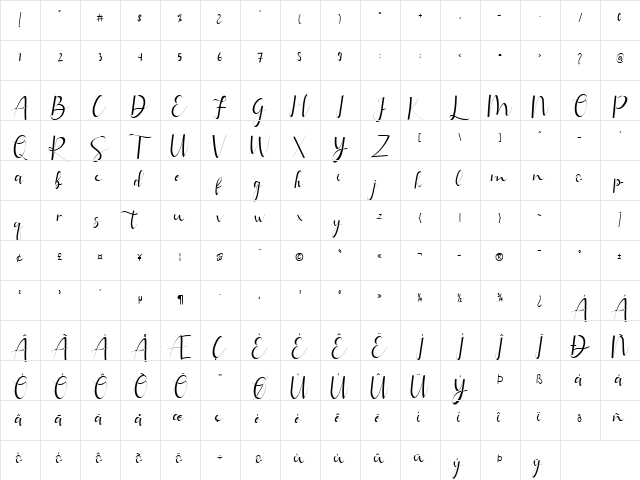
Gietta Regular
| Designer | AEN Creative Studio 2020 |
Design Context for Gietta Typeface
Gietta is a composed and adaptable typeface that performs quietly and consistently across a wide range of design contexts.